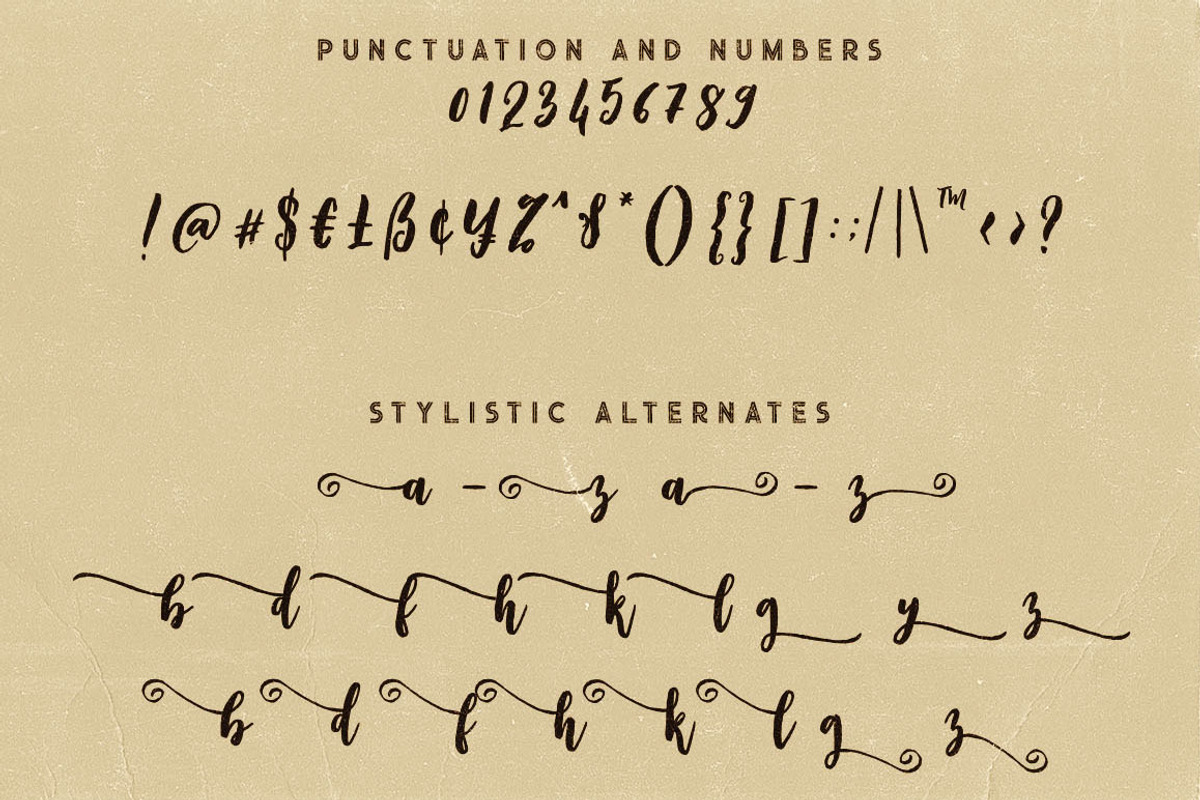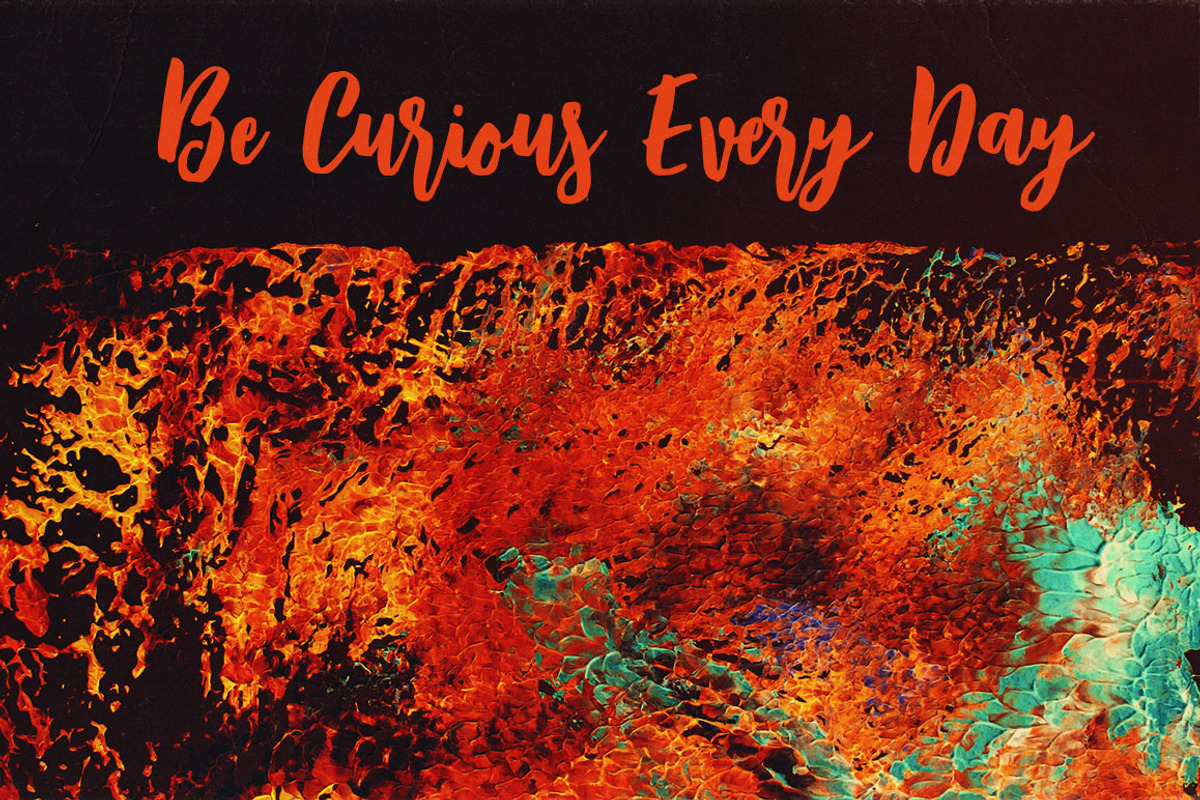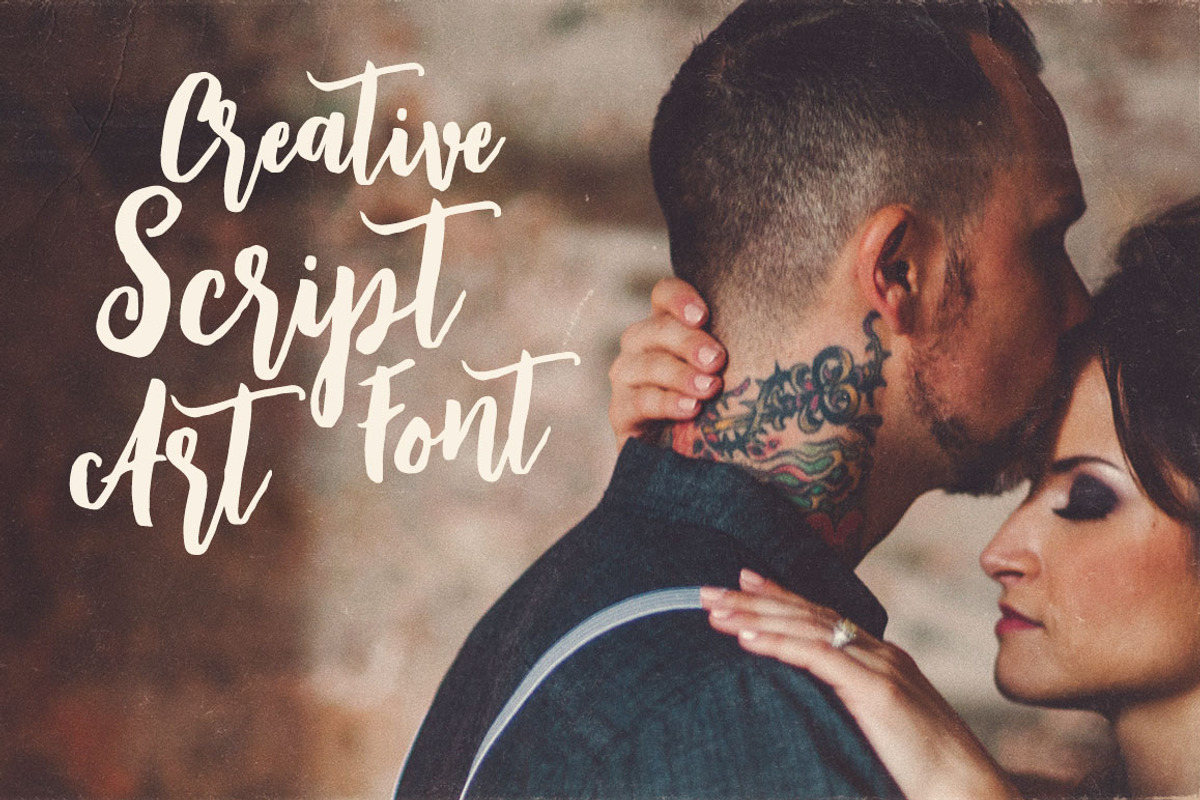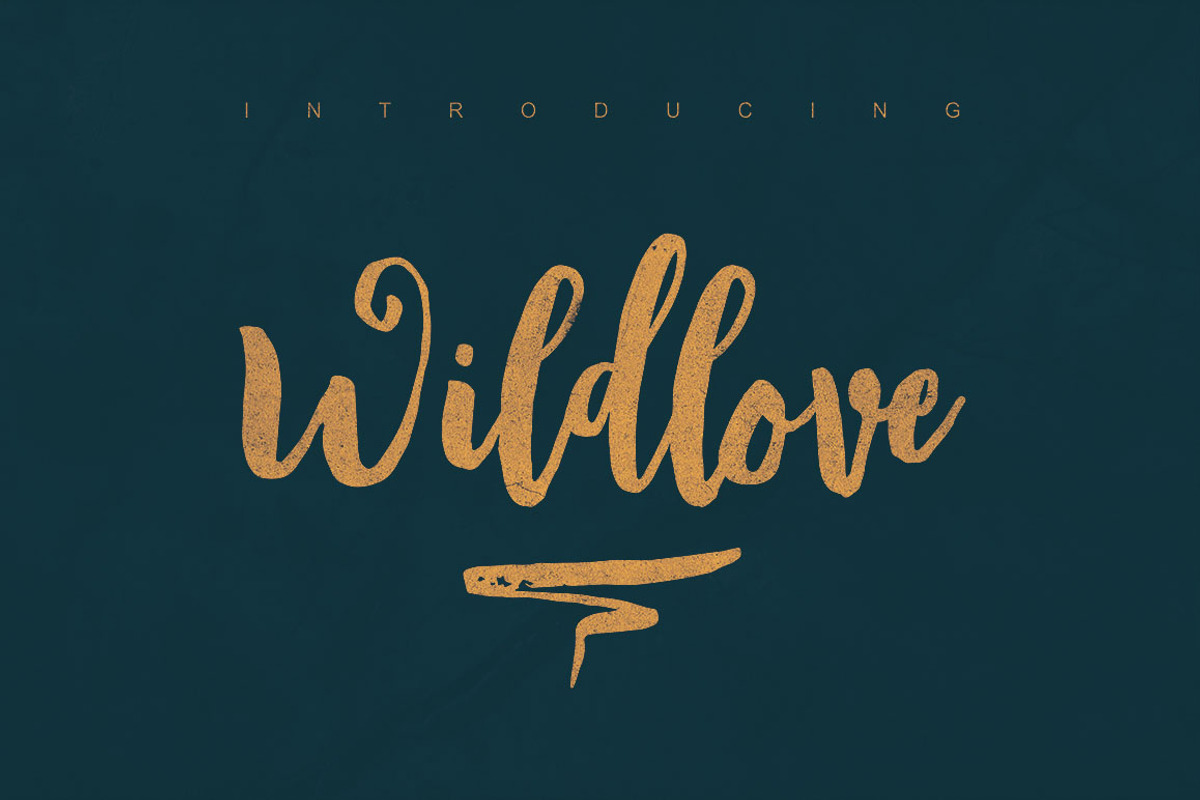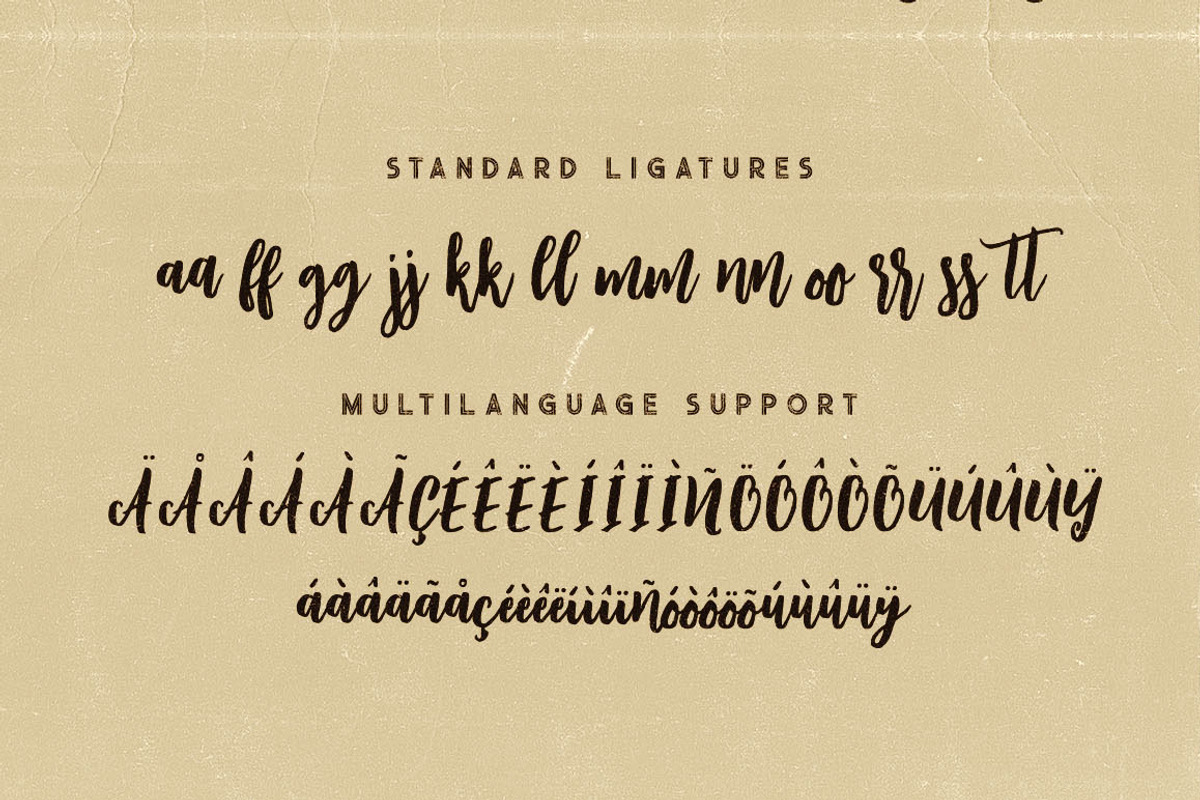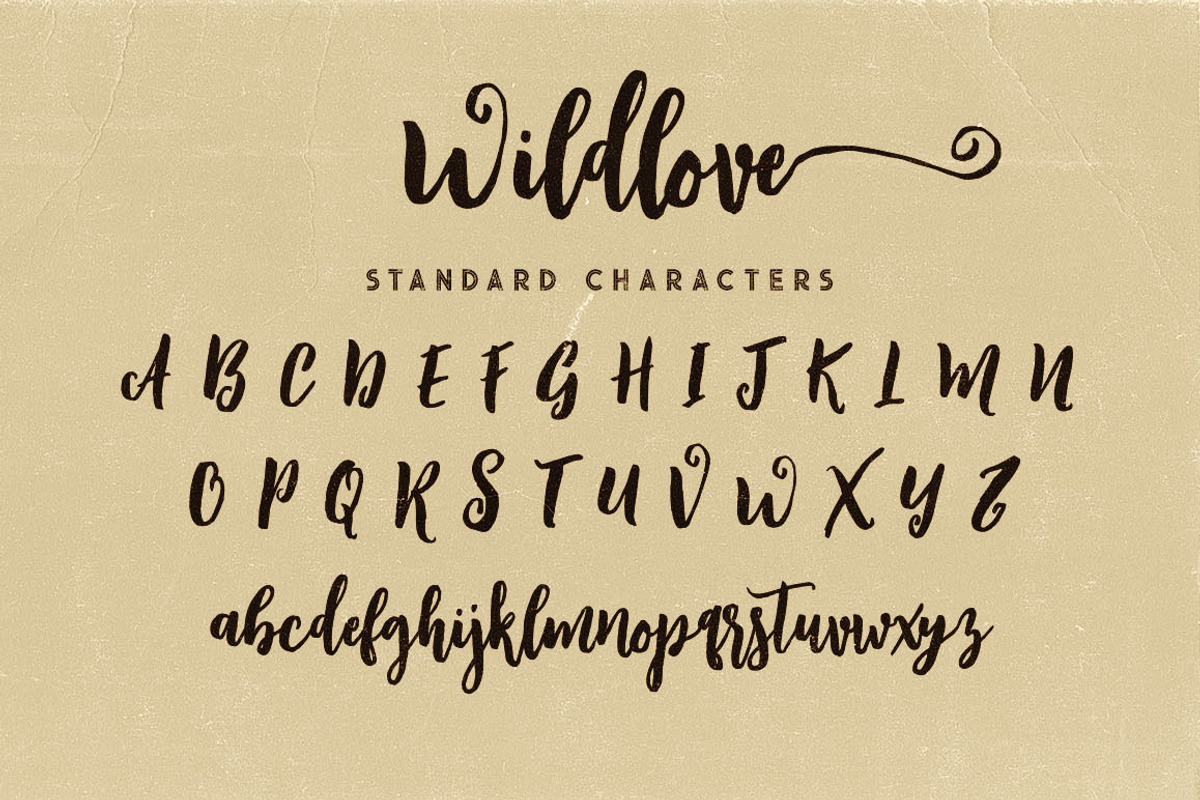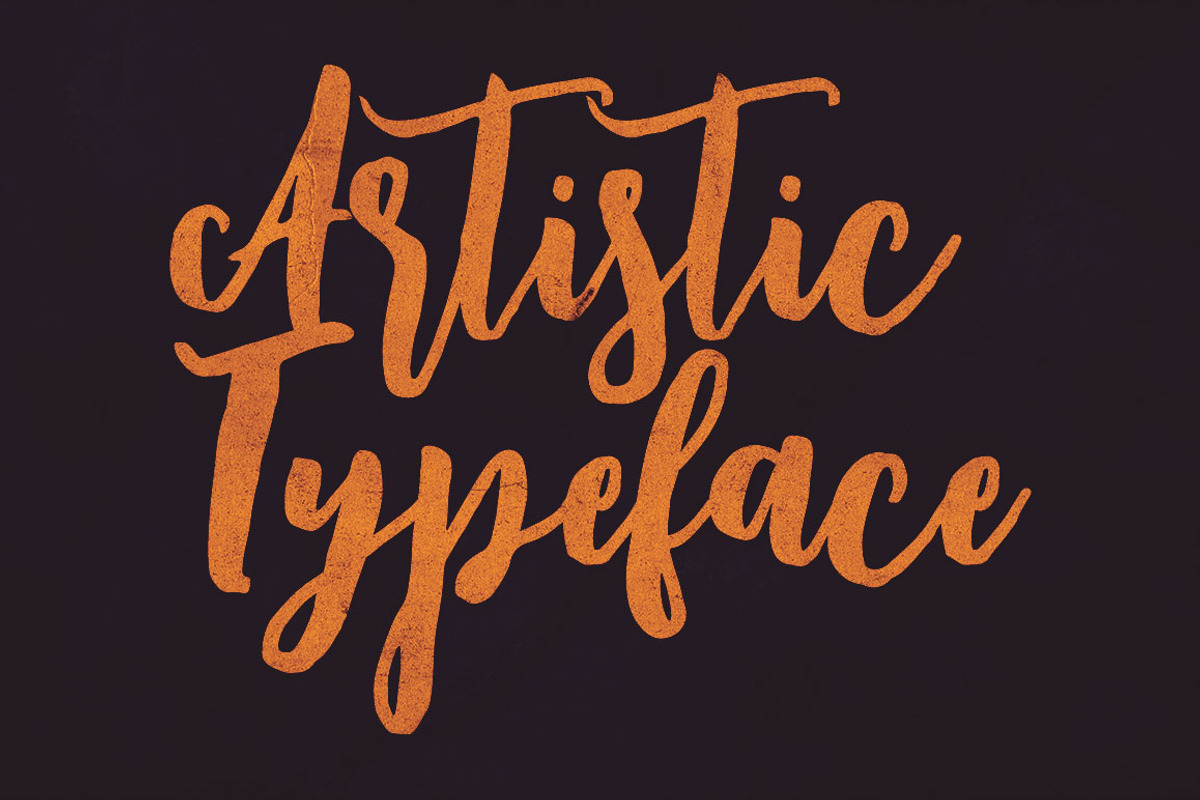
Wildlove Script Font
Artistic and handwritten or dancing baseline style script font for your new projects. With multi language support and lot of stylistic alternates & swashes. Enjoy ;)
- With multi language support and lot of stylistic alternates & swashes.
Wildlove Script Font by Deeezy fits naturally into Branding, posters, packaging, typography.